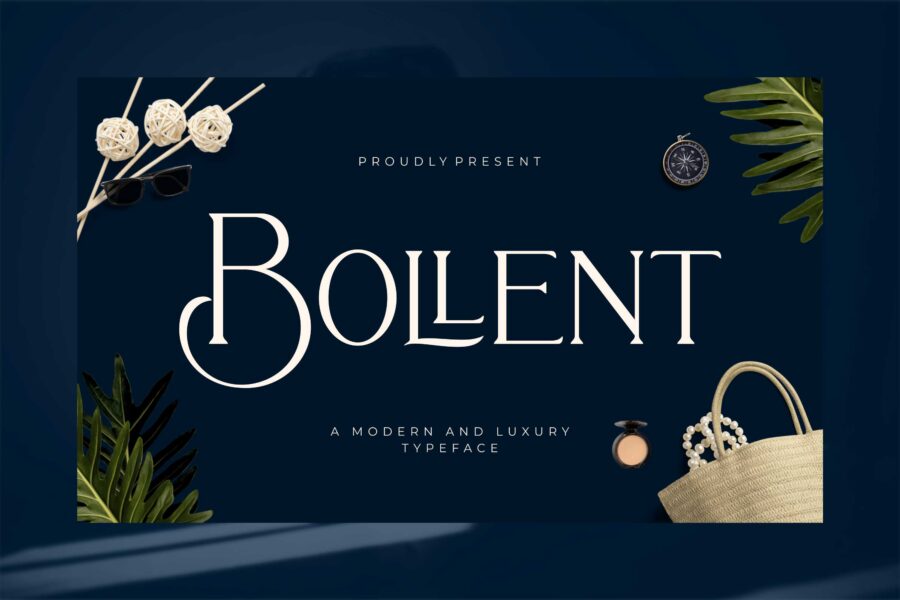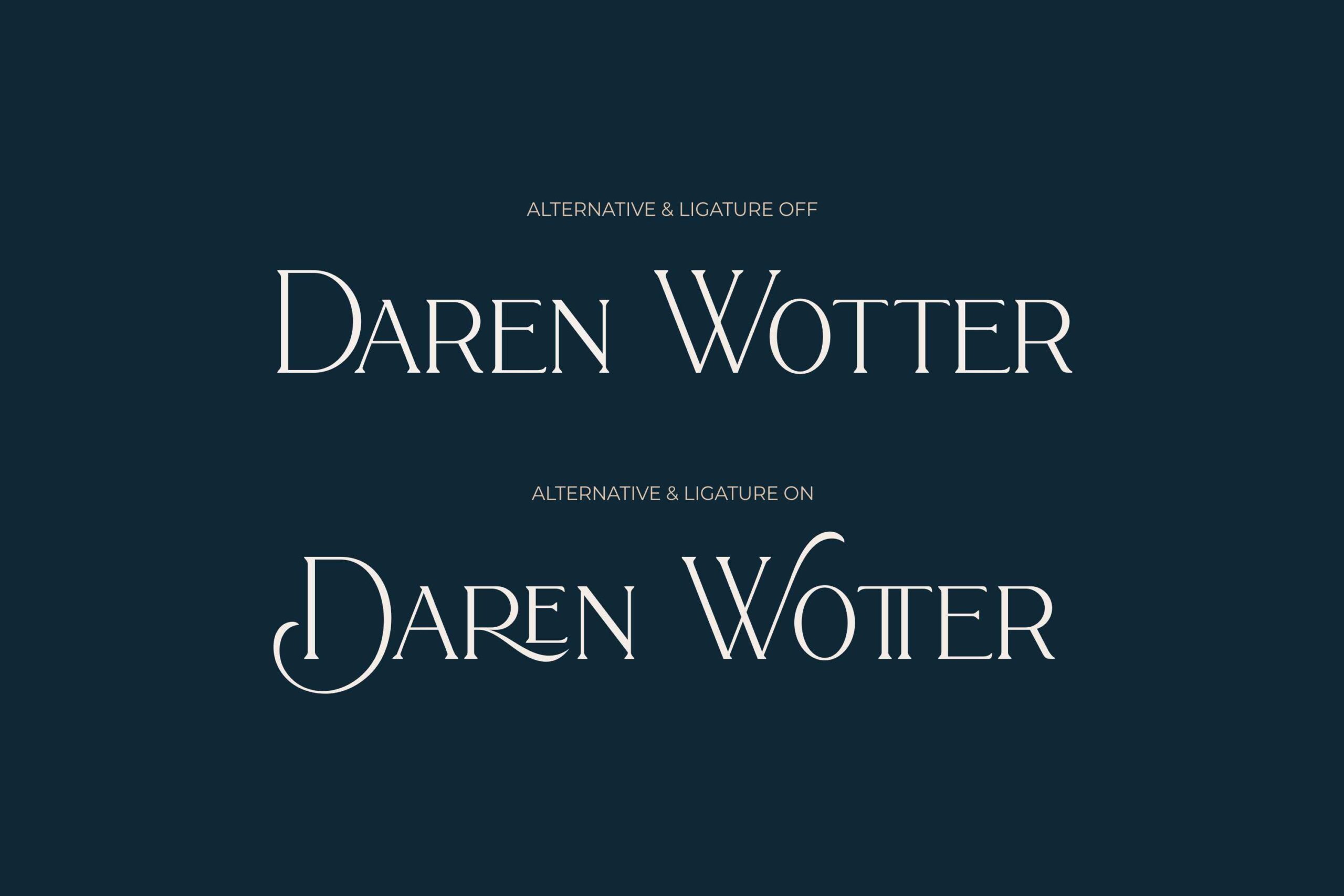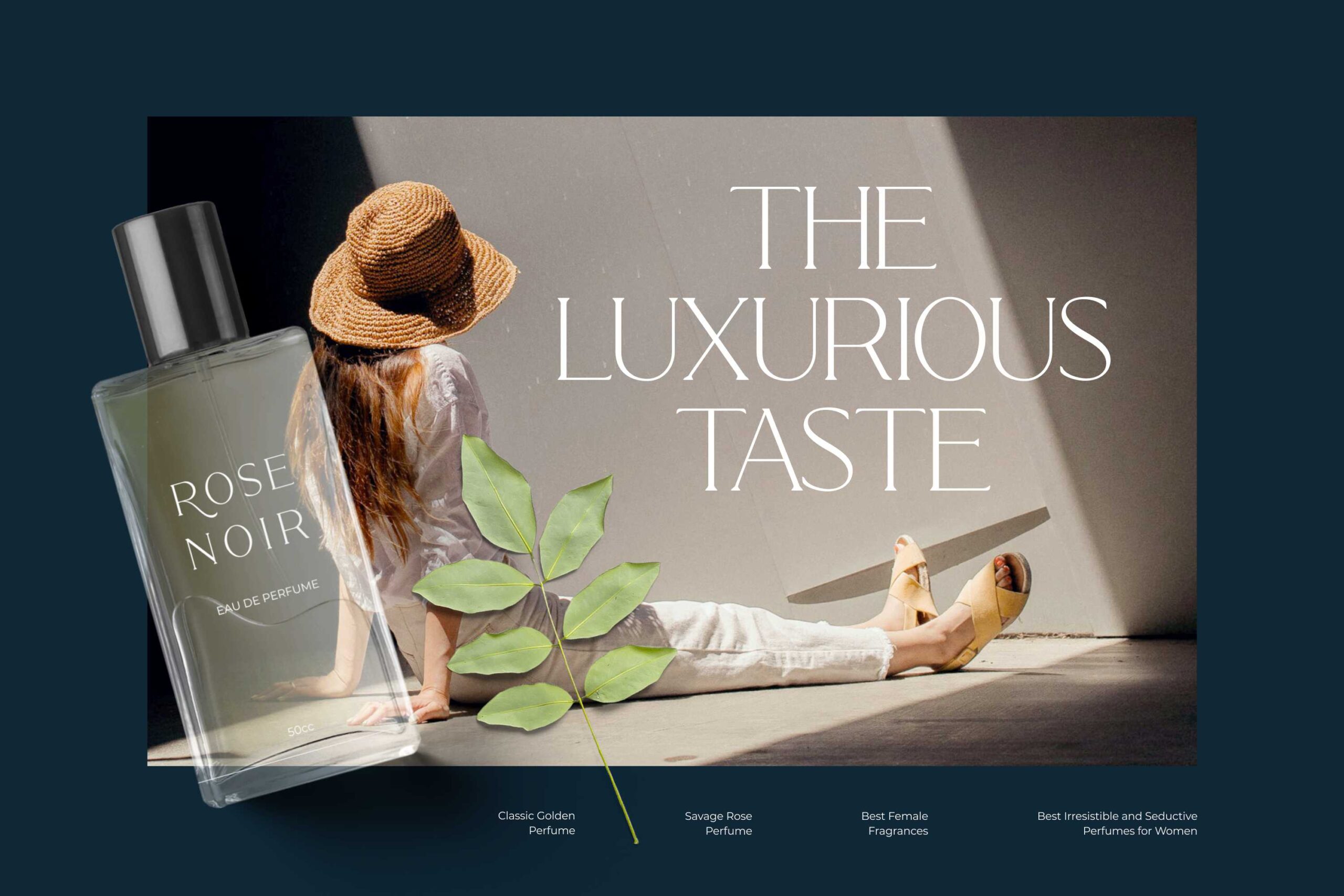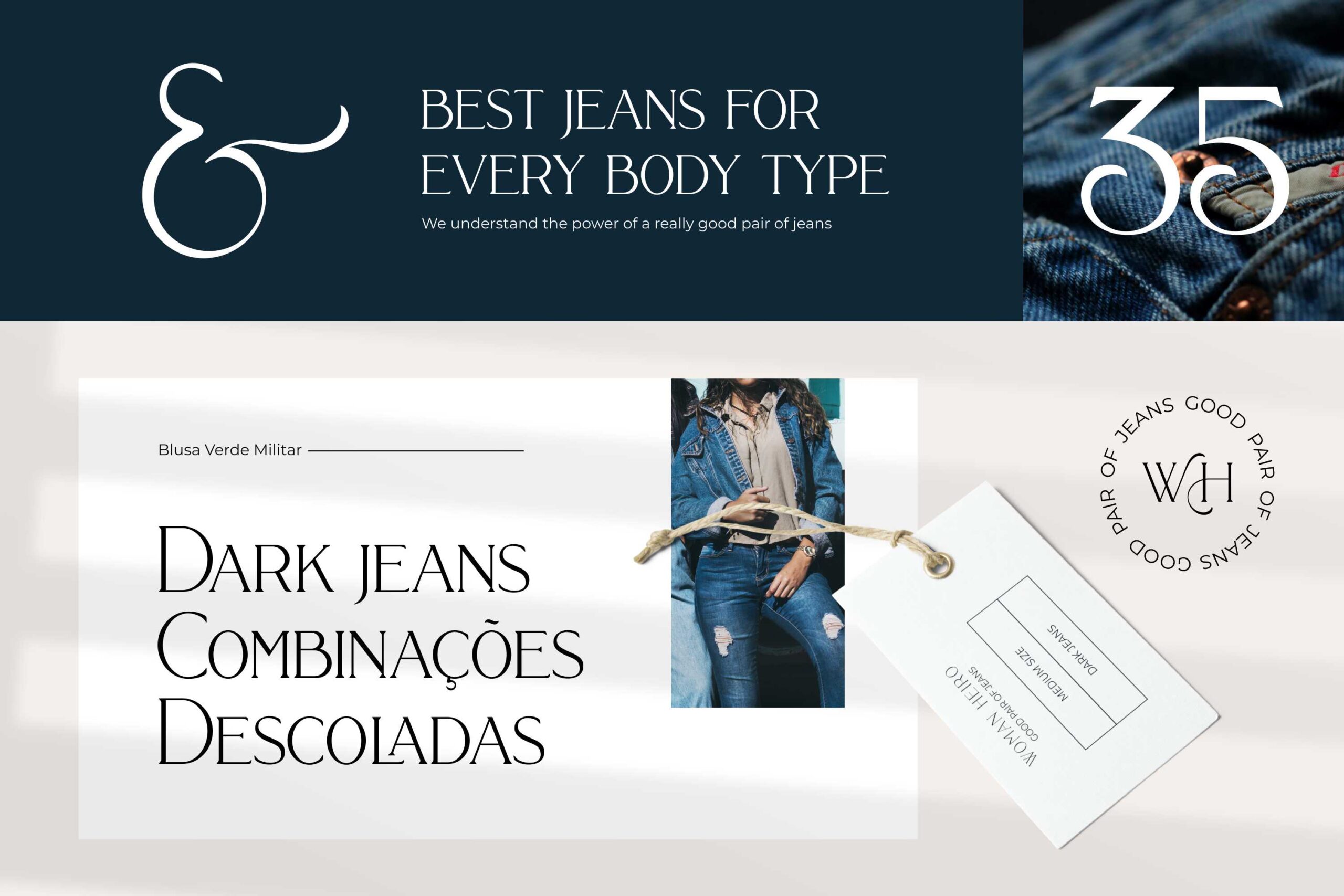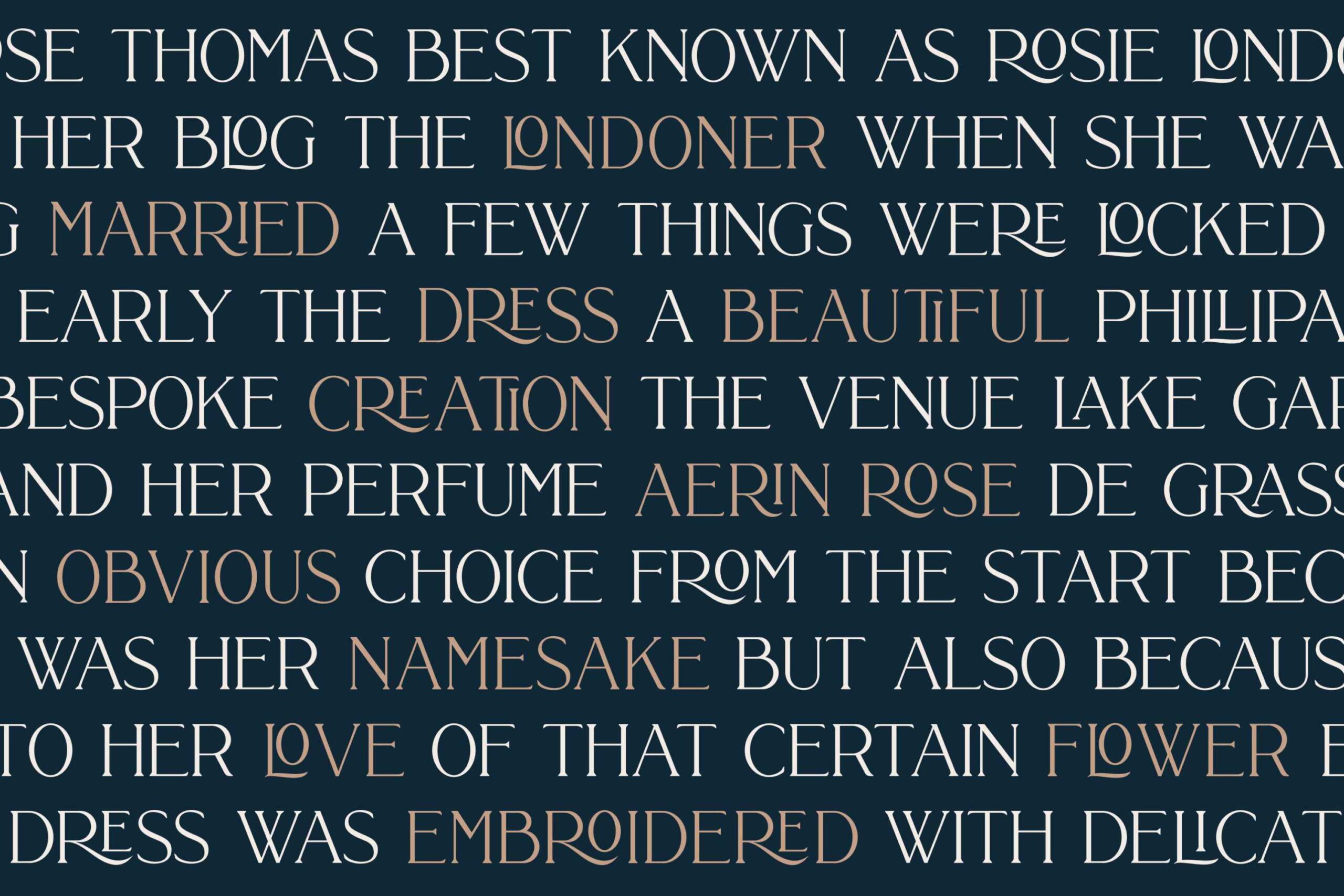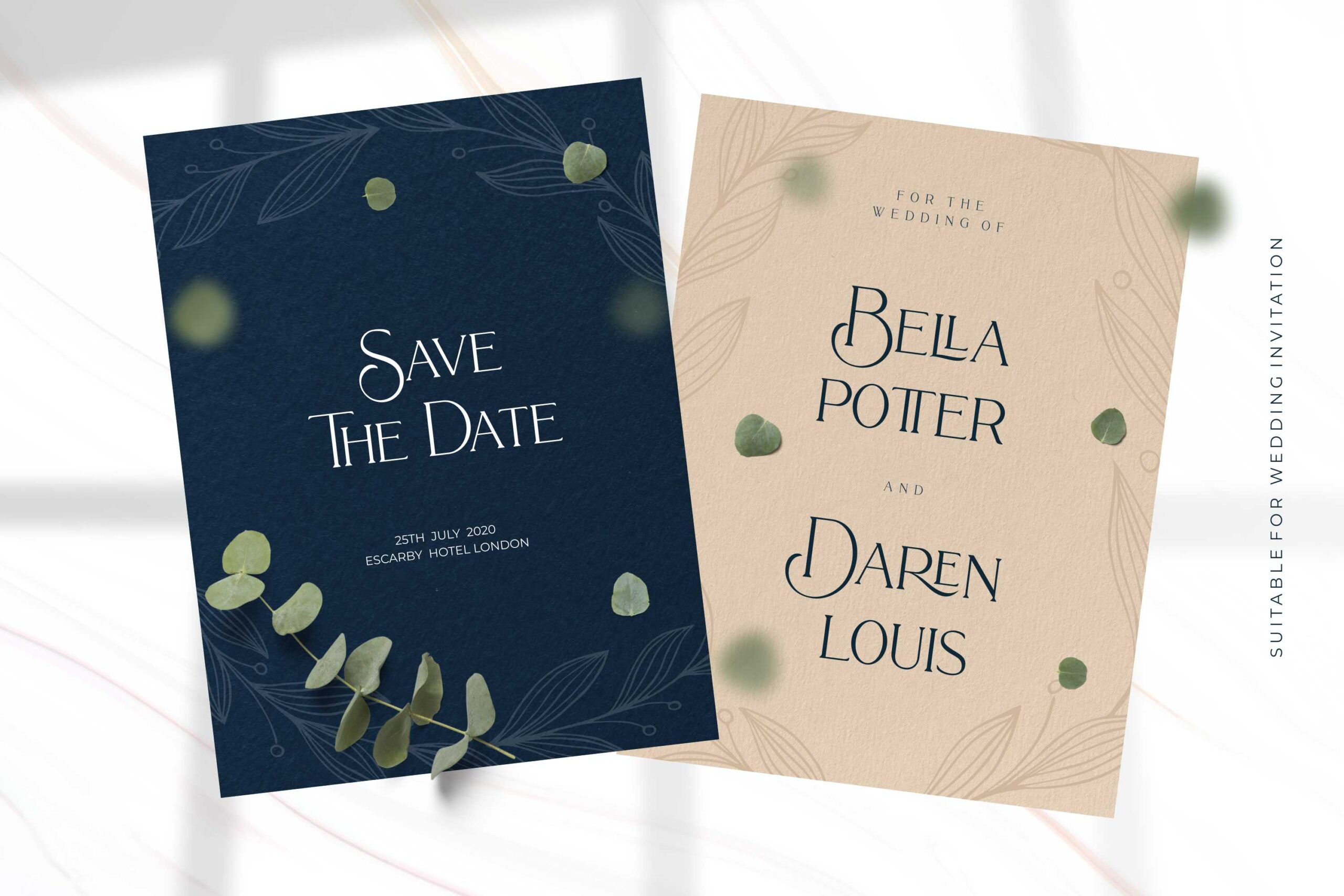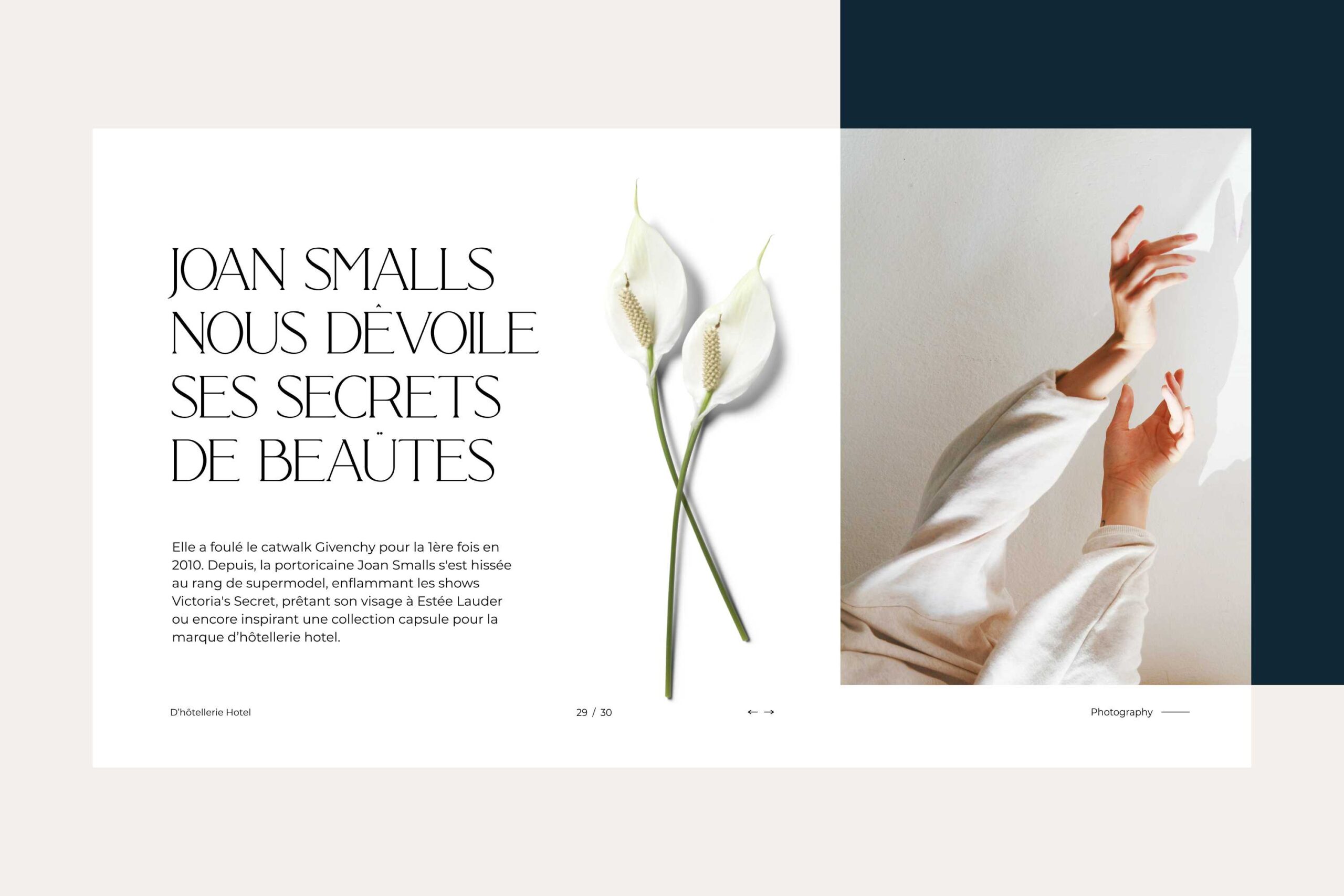
Bollent is a modern and luxury serif typeface with refined curves and elegant letterforms. Designed with high contrast strokes, stylish alternates, and smooth ligatures, this font exudes sophistication while remaining versatile. Perfect for wedding invitations, fashion branding, perfume packaging, editorials, and upscale logos, Bollent creates a premium and timeless impression.
Its graceful details make it suitable for both minimal layouts and decorative titles, allowing designers to combine simplicity with luxury. Whether used in magazines, beauty products, or personal branding, Bollent ensures every design looks polished, classy, and visually captivating.